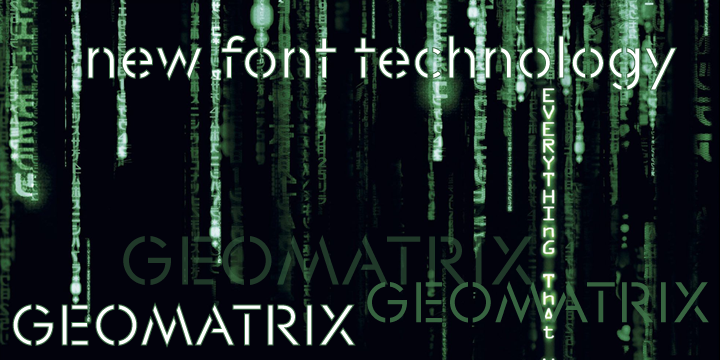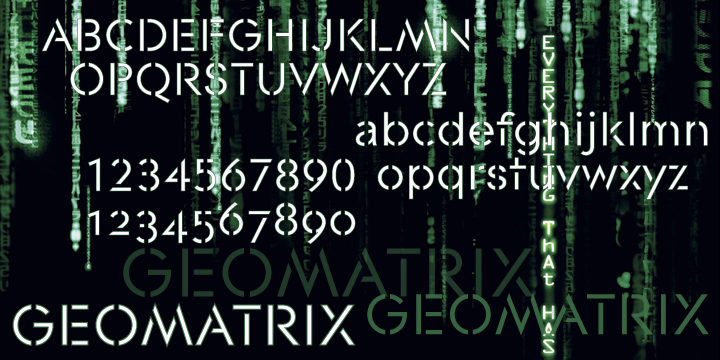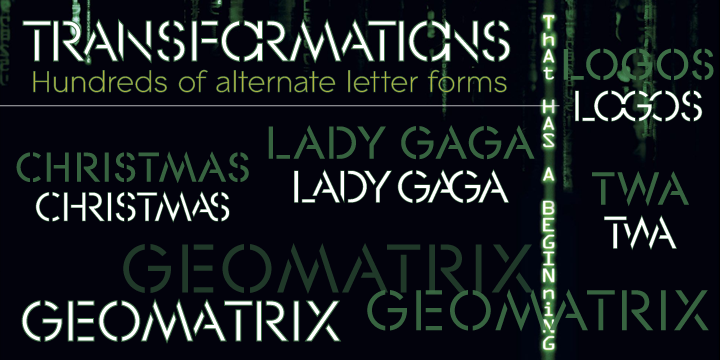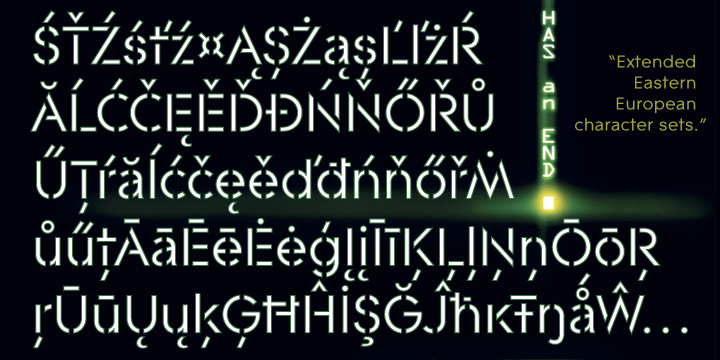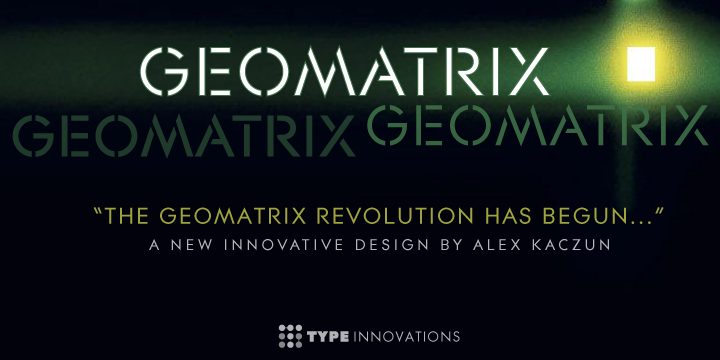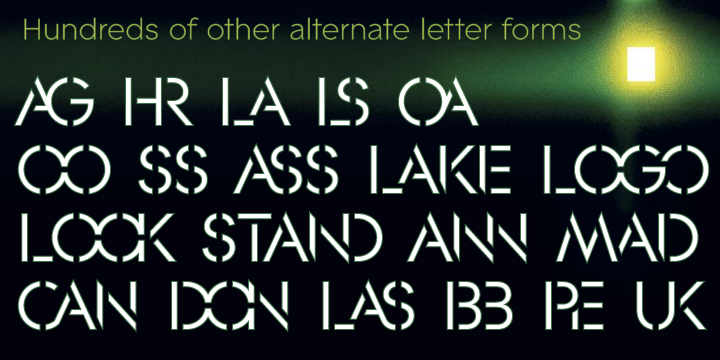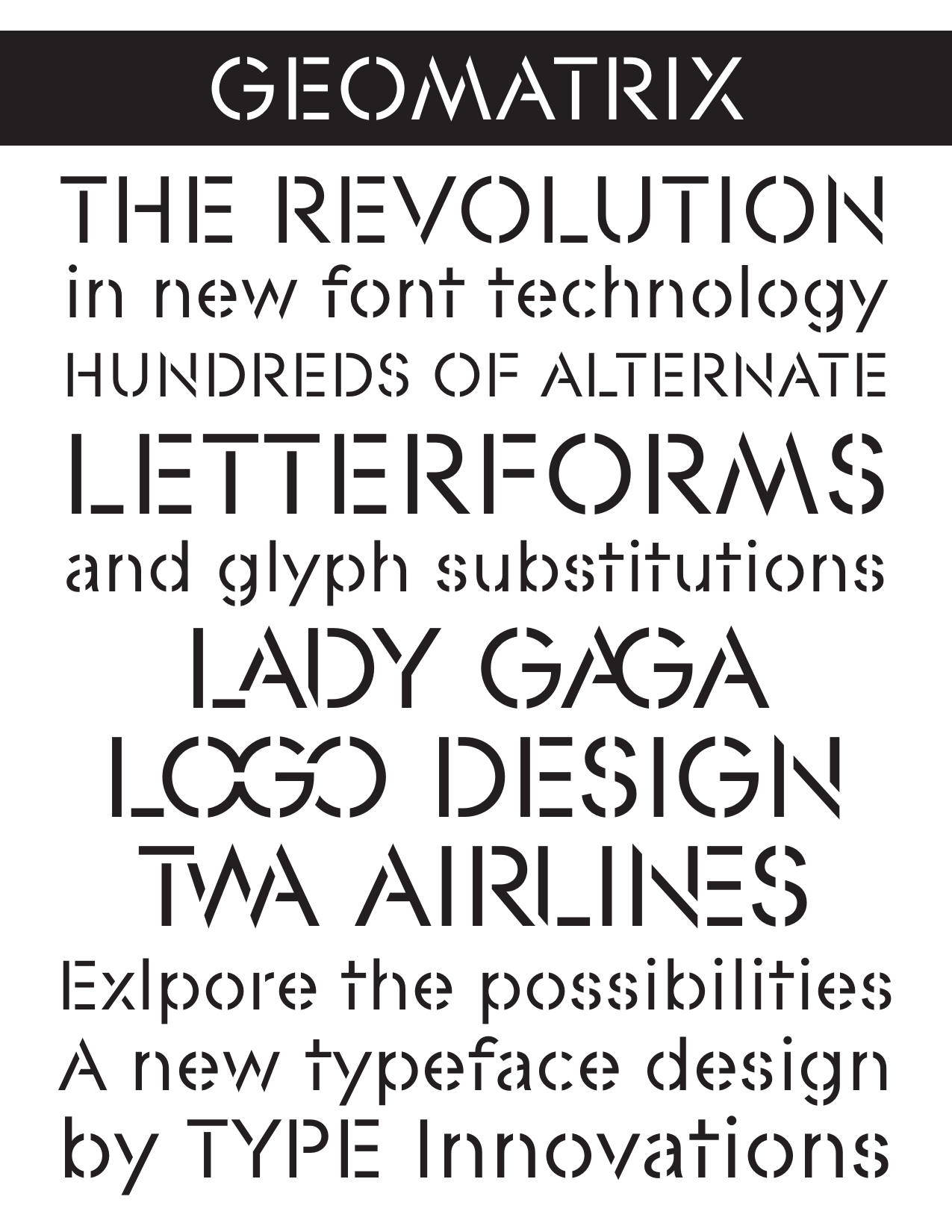
Geomatrix
The font Geomatrix is an original design by Alex Kaczun. It is a dynamic stencil interpretation based on his extremely successful ‘Contax Pro’ family of sans serif typefaces. However, this is no ordinary stencil typeface. Geomatrix is a font on ‘STEROIDS”!
This unique OpenType font incorporates hundreds of alternate “CAPITAL” letter forms and glyph substitutions, automatically and on the fly, within InDesign and other OTF applications.
In addition, the character sets have been expanded to include ‘oldstyle figures’ and all ‘Eastern European’ accented glyphs. A revolution in new font technologies has begun!